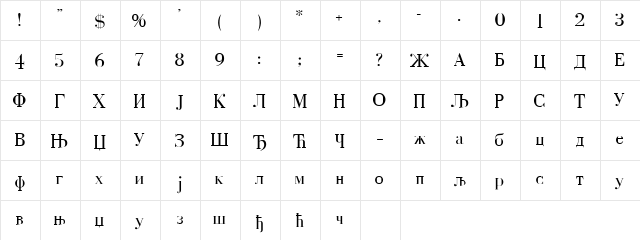
BodoniCir Normal
Design Context for BodoniCir Typeface
BodoniCir is a composed and adaptable typeface that performs quietly and consistently across a wide range of design contexts.